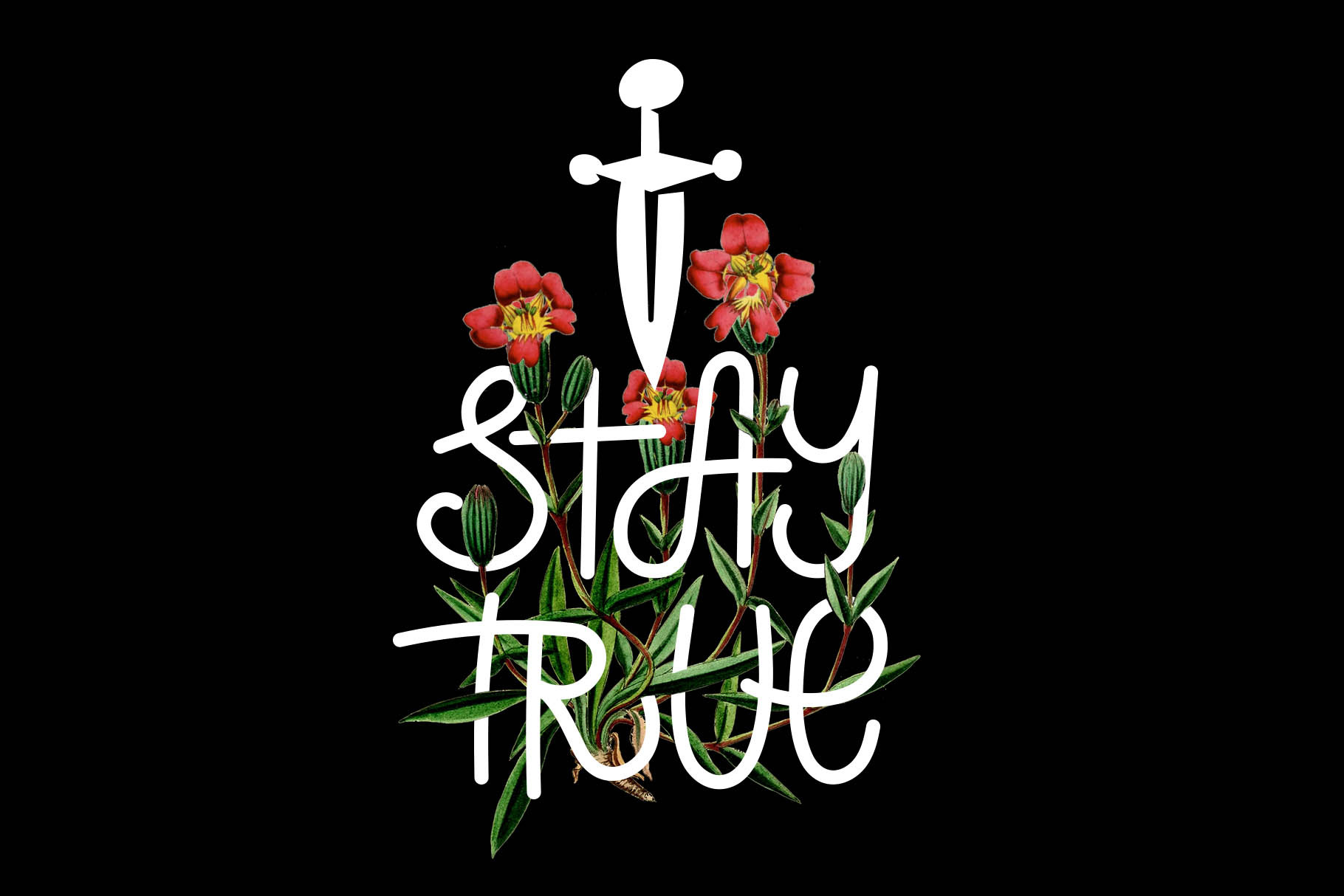
Stay True - cute friendly font
Introducing Stay True
Stay True is a decorative monoline font. This font includes upper and lowercase characters, punctuation and numerals. It is perfect for:
- Logos
- Posters
- Headlines
- Apparel
- & more